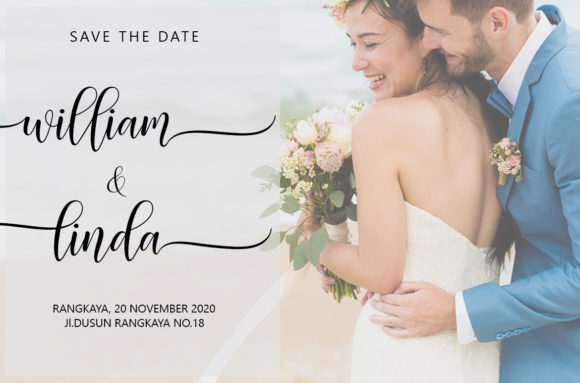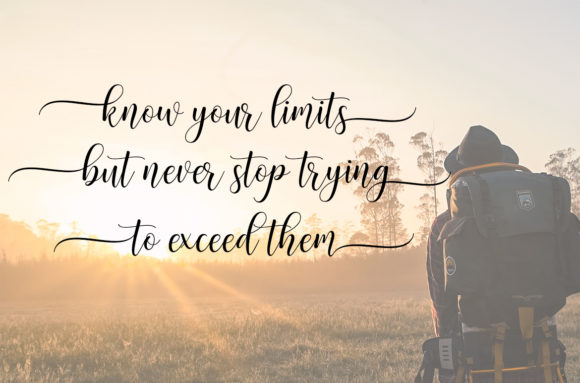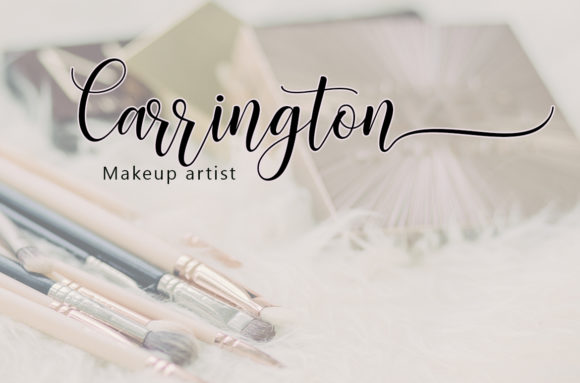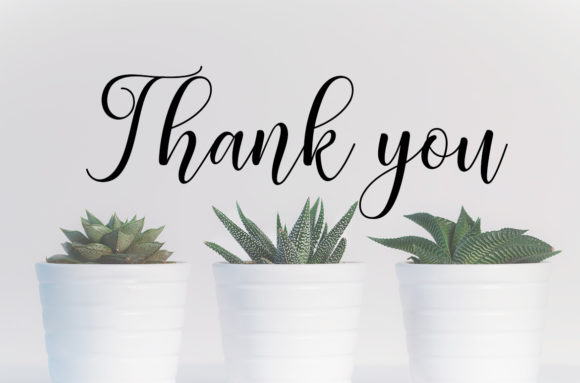
Leisa Script Font
About Leisa Script Font
The Leisa is an elegant handwritten script. It includes beautiful swashes that will give your design a feminine and handmade touch.